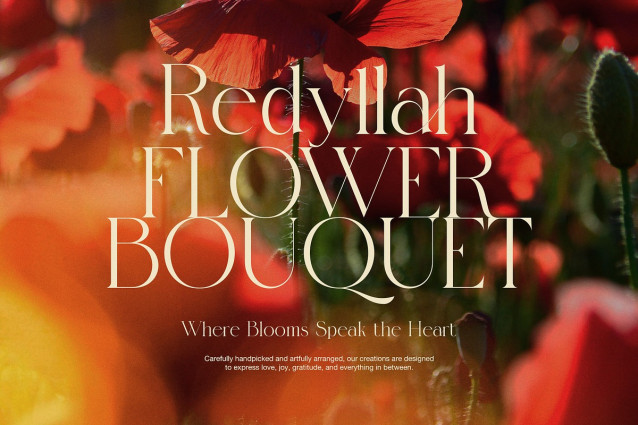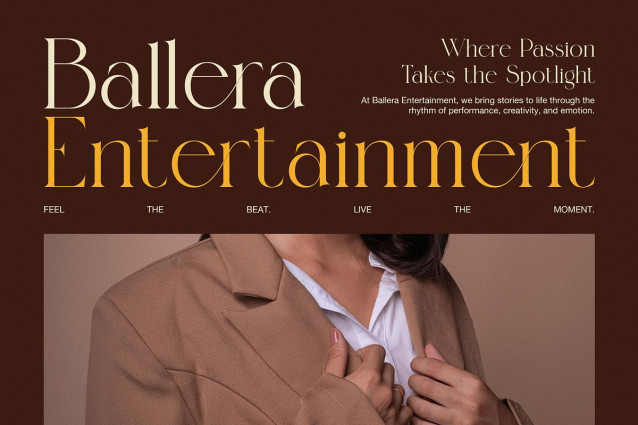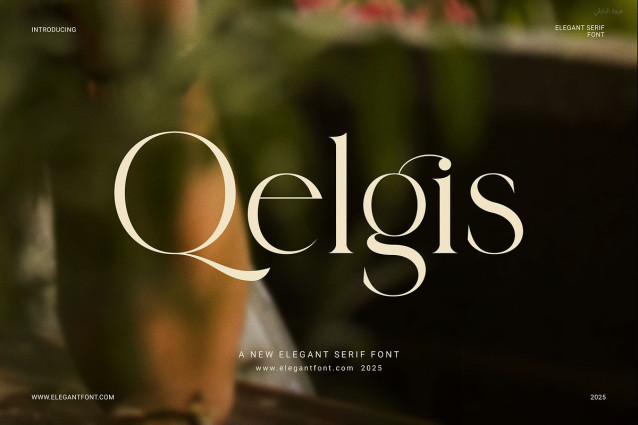
Qelgis Font
Qelgis Font – Stylish Serif Font is a modern and elegant typeface designed to elevate your creative projects. With its clean lines and well-balanced letterforms, this font delivers a timeless look that works beautifully across many applications.
Not only is Qelgis visually appealing, but it’s also highly functional. Its proportional shapes and smooth flow make it suitable for both digital and print designs. In addition, the font includes stylish ligatures that enhance the overall look of your text, giving it a more refined and creative touch.
Because Qelgis is so versatile, it fits a wide variety of design needs. Whether you’re creating branding materials or designing a product label, this font brings a sense of professionalism and charm. Plus, it pairs well with both serif and sans serif fonts, allowing for endless design combinations.